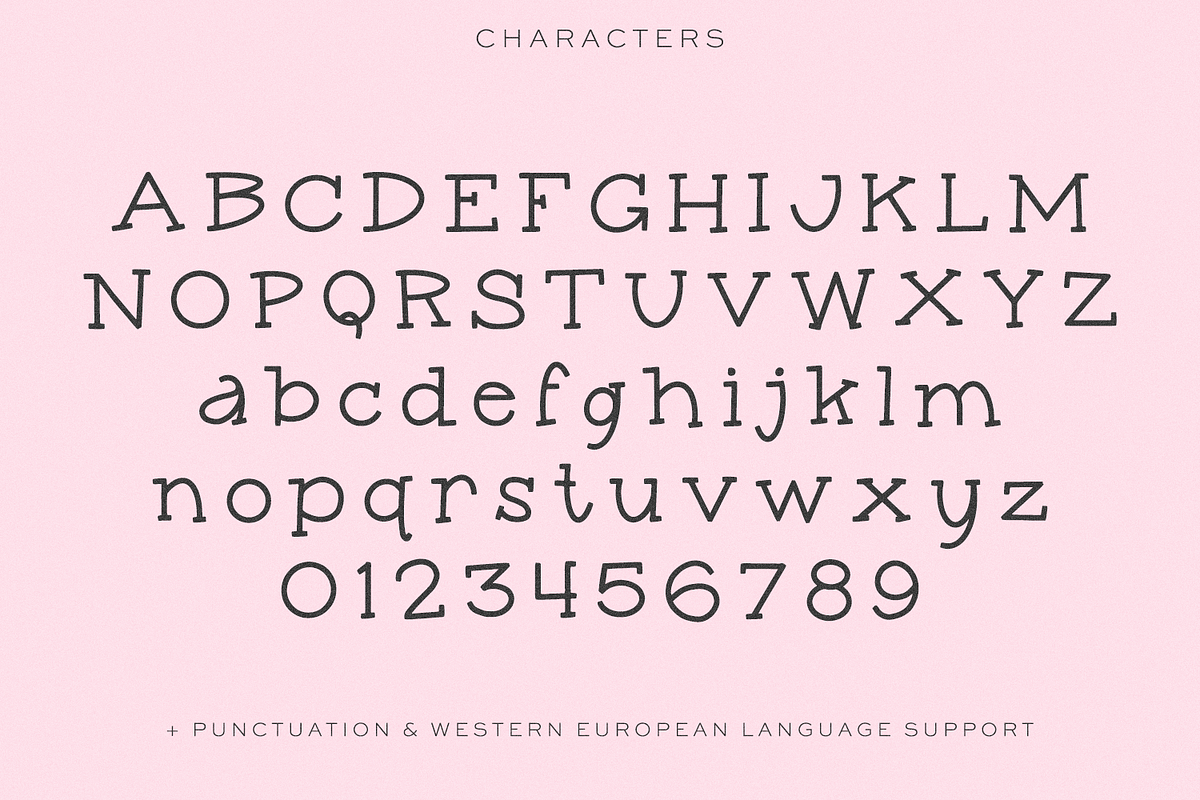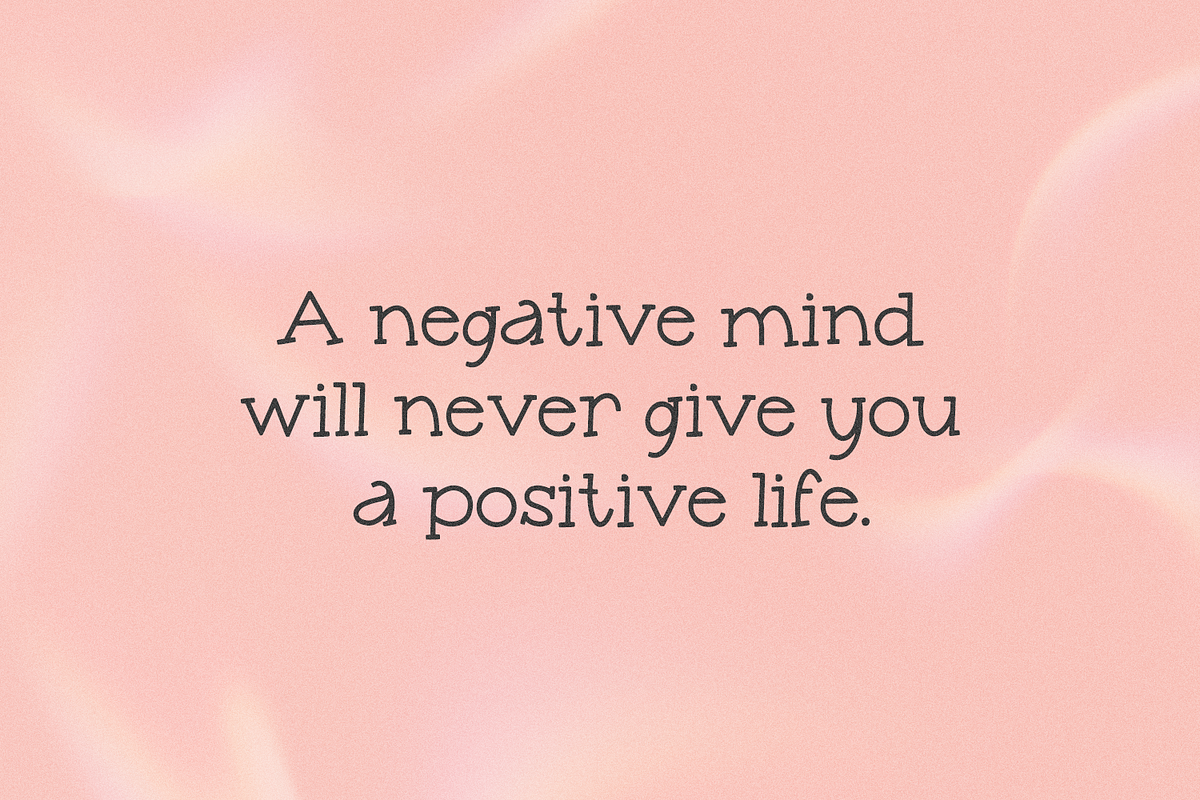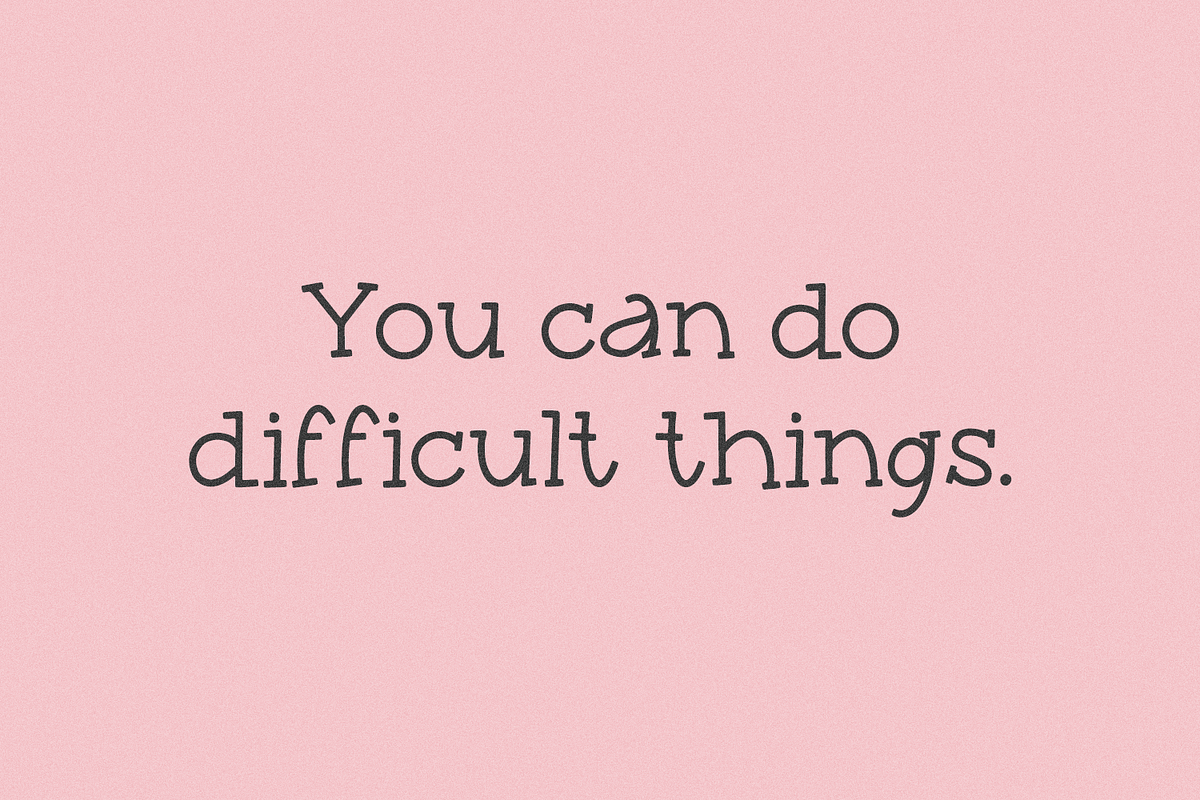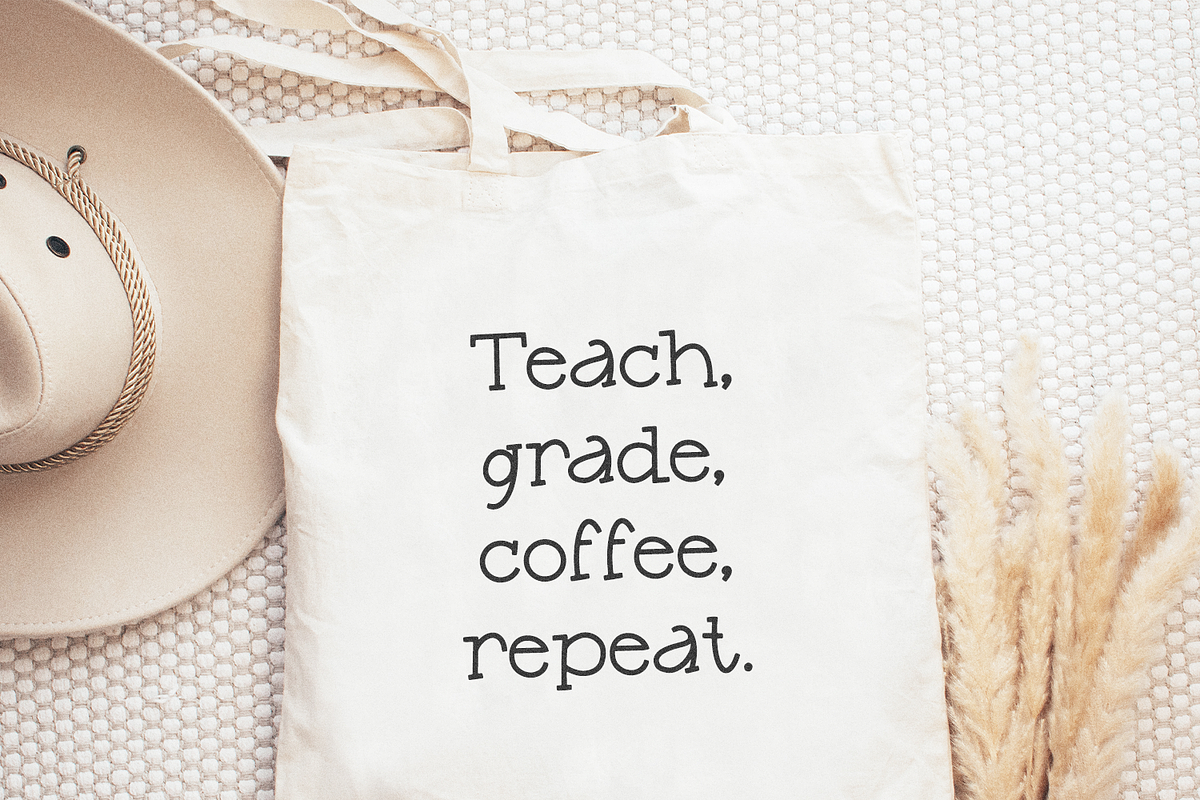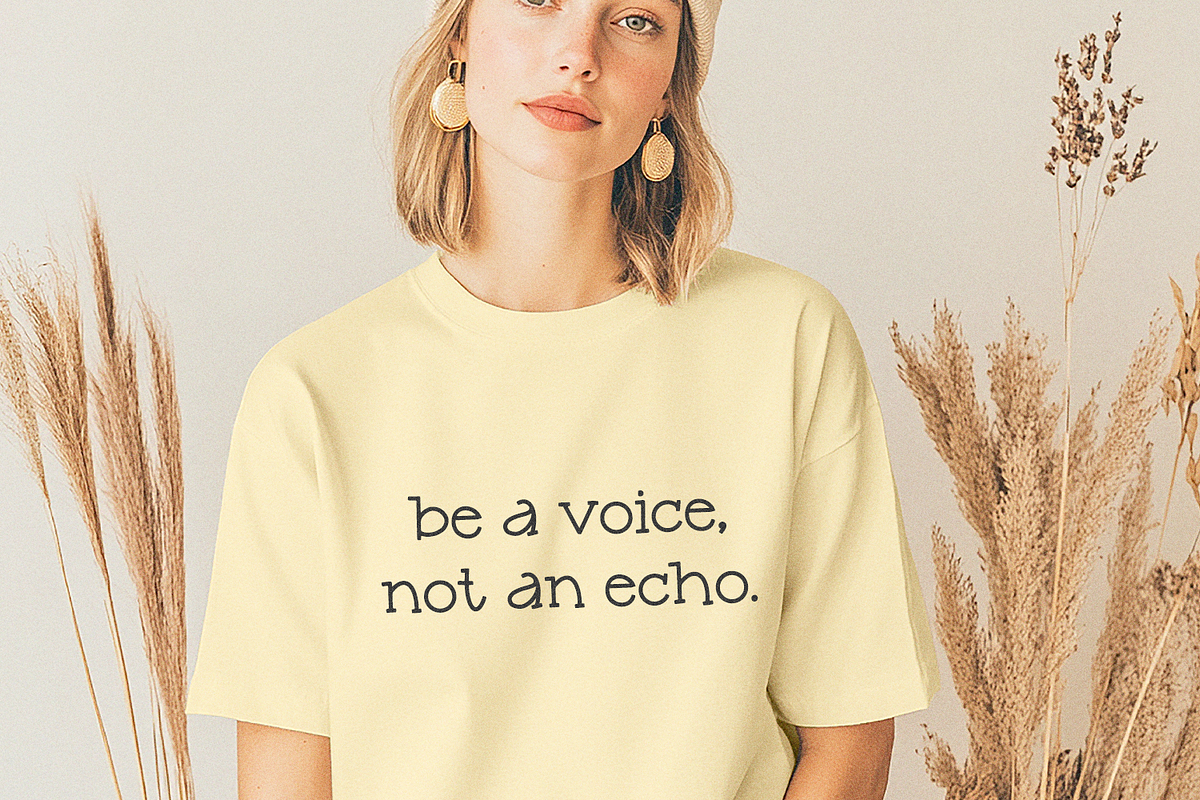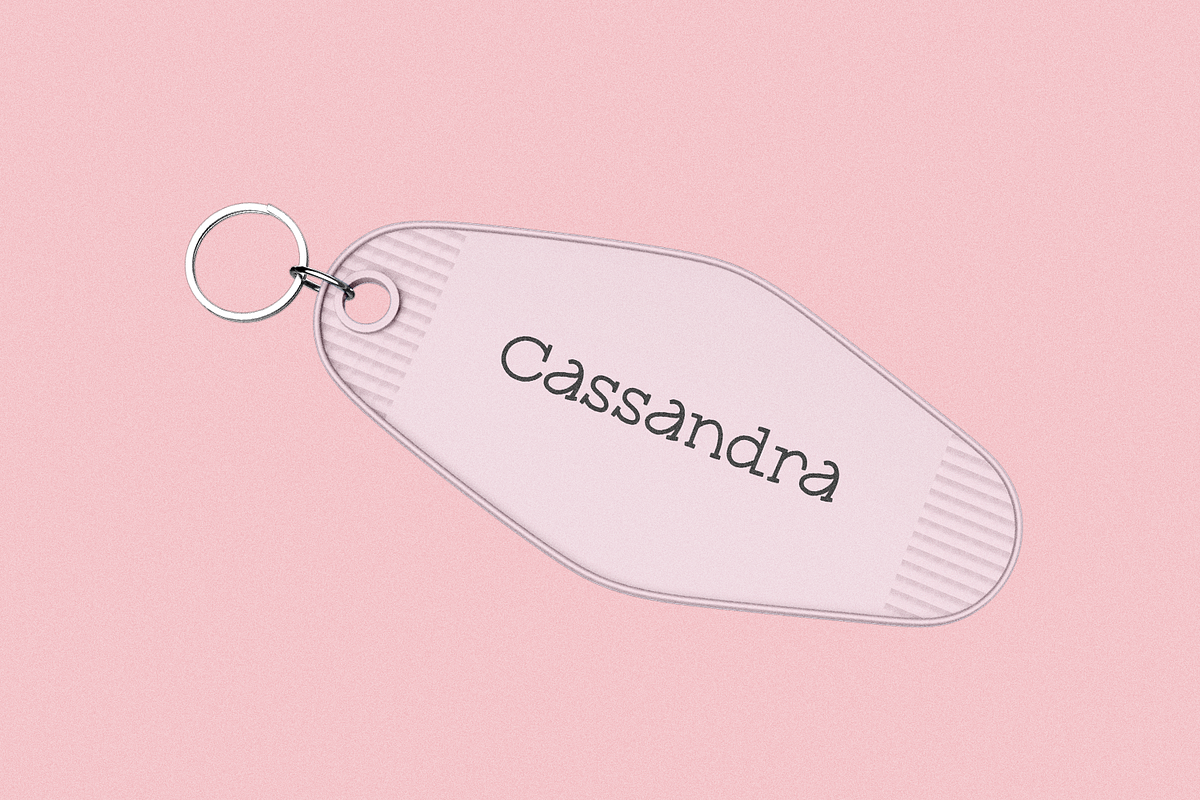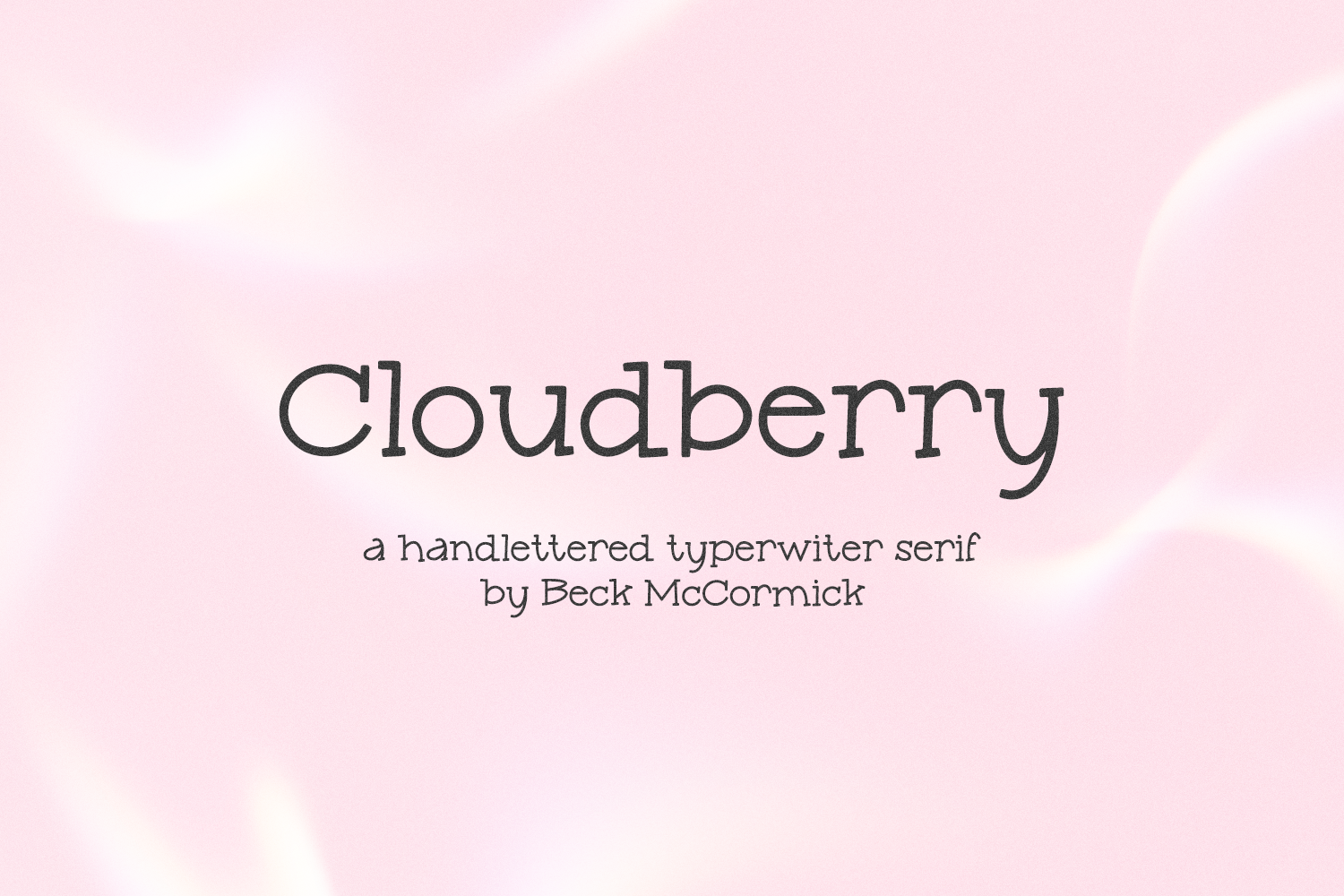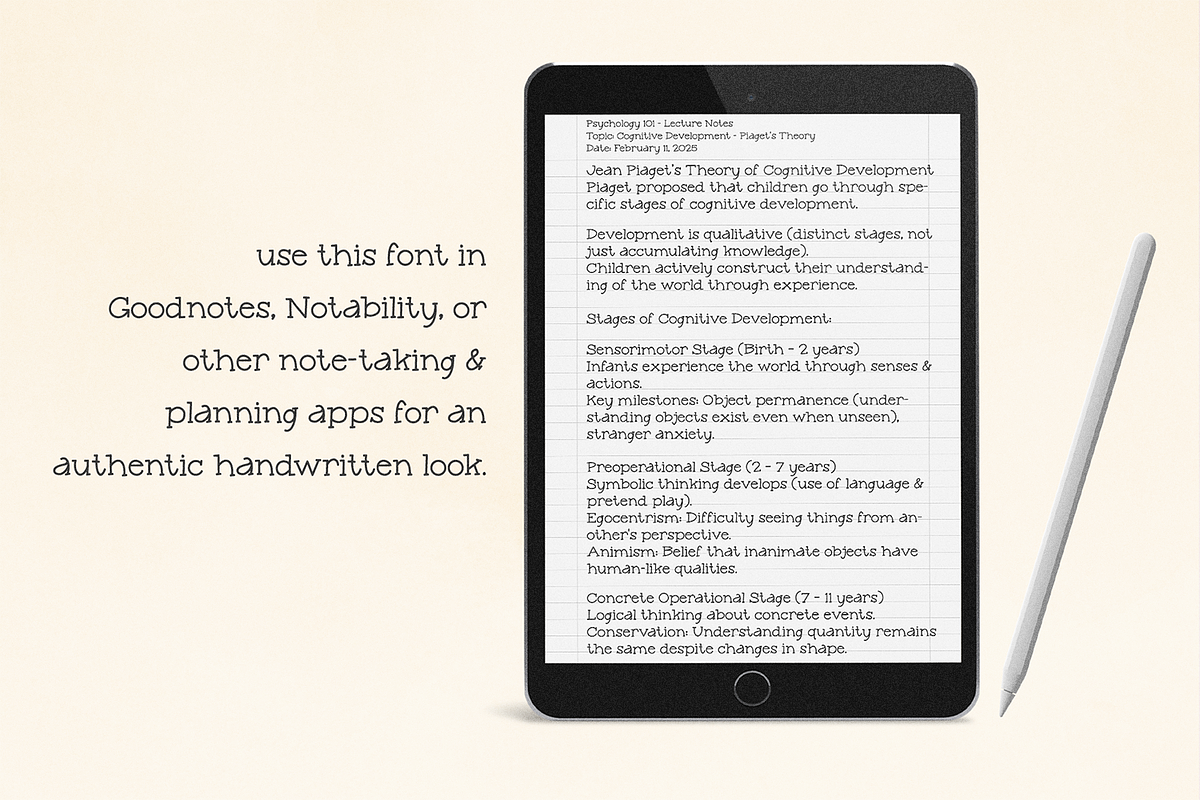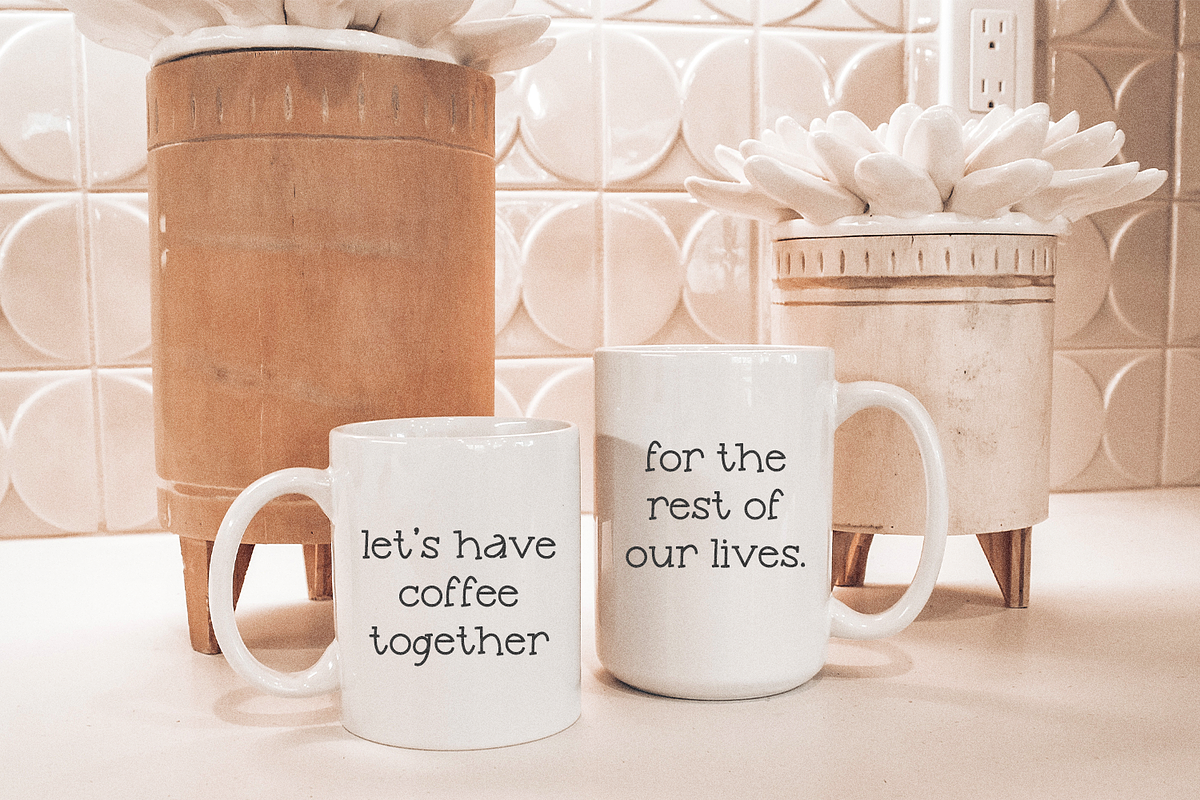
Cloudberry Typewriter Serif Font
Cloudberry Serif is a cute typewriter font. This serif font is neat and has squared-off ends. Cloudberry Serif is perfect for logos & branding, greeting cards, painted banners, digital planners, note-taking apps, Canva, Cricut projects, Silhouette projects, designing SVG files, laser cutting projects, & more.
- full upper + lowercase characters
- numbers + punctuation
- Western European language support - English, French, Spanish, Portuguese (Brazil), Portuguese (Portugal), Italian, German (Germany), German (Austria), Dutch, Danish, Swedish, Norwegian (Bokmål and Nynorsk), Finnish, Icelandic, Irish, Welsh